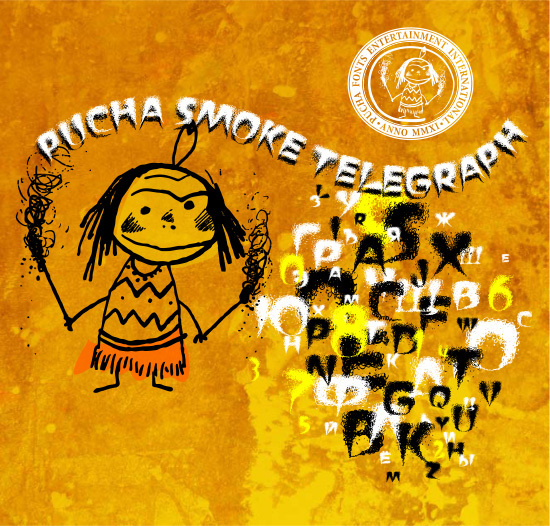
Pucha Smoke Telegraph3 by A.Z. of Fine Line Progressive Decorating Band is a free graffiti script with dense, inked letters wrapped in frantic tangles. The dark cores hold recognizable shapes, but loose curls, scratches, and dangling trails make the lettering look freshly sprayed and restless.
Concert posters are its strongest setting, especially for punk, noise, or experimental acts. It also suits streetwear graphics, skate merchandise, and underground event flyers. In magazine publishing, the lettering can become part of a chaotic illustration rather than serving as a neutral headline.